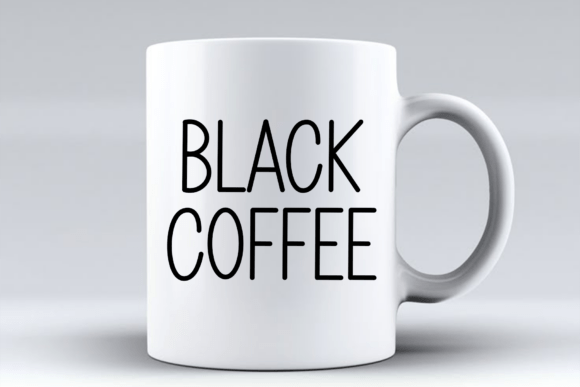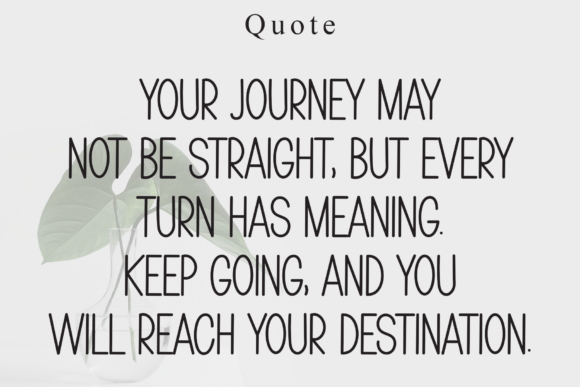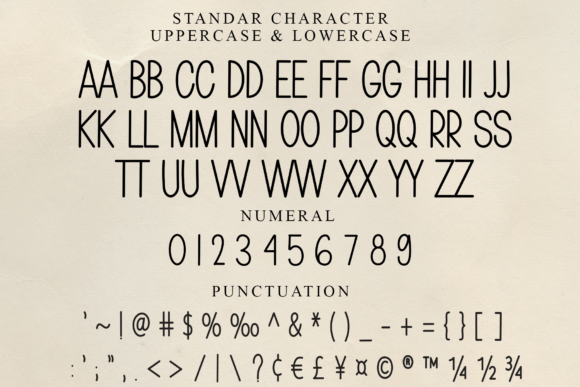
Introduction to Runtime Font
Have you ever stared at a blank page, waiting for that perfect design idea to strike? It’s a moment we’ve all been in, and it’s exactly what makes discovering a new, high-quality design resource so thrilling. That’s where the Runtime Font comes in – a sweet and friendly font that’s sure to spark your creativity and bring your next project to life.
With its natural and unique style, the Runtime Font is the perfect addition to any design. Whether you’re working on a free download or a high-end creative project, this versatile font is sure to fit in seamlessly. Plus, its transparent background makes it a valuable resource for designers who want to add a touch of elegance to their designs.
Key Features of Runtime Font
- Unique characteristics, such as bold and italic styles, add versatility to the font and make it suitable for various design projects.
- Runtime Font is a design resource that can be easily customized and edited to fit the specific needs of your creative project.
Honest Review: Runtime Font
What works well: ✨ The Runtime Font is a high-quality design resource that offers a wide range of styles and fonts. I love how versatile it is, making it perfect for any creative project. The transparent background makes it easy to customize and integrate into any design. The free download option is also a major plus, as it’s always great to have access to quality resources without breaking the bank.
- Wide range of styles and fonts
Overall, I’m impressed with the Runtime Font, and I would definitely recommend it to anyone looking for a high-quality design resource. With a few tweaks to address the limitations, it has the potential to be a top-notch tool for designers.
Tips for Getting the Most Out of Runtime Font
For the best results, use Runtime Font in conjunction with a high-quality image or design element. This will help to create a cohesive and visually appealing design. You can also experiment with different font sizes and colors to add depth and interest to your design.
Runtime Font is perfect for a variety of design projects, including business cards, brochures, and social media graphics. It’s also great for creating titles and headings for presentations and documents. With its high-quality design and transparent background, Runtime Font is a versatile and useful design resource.